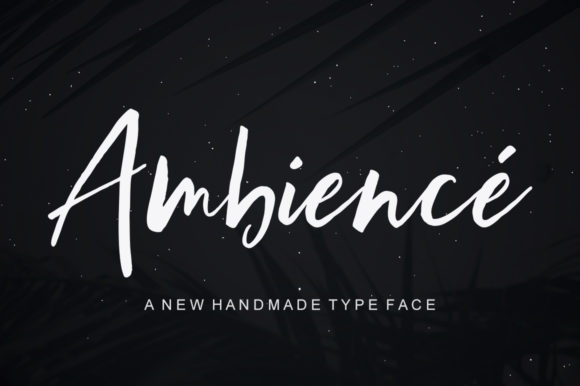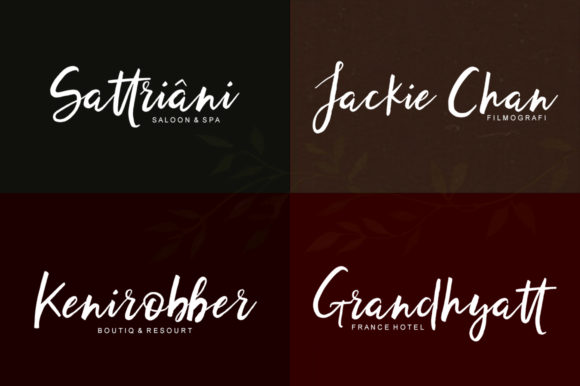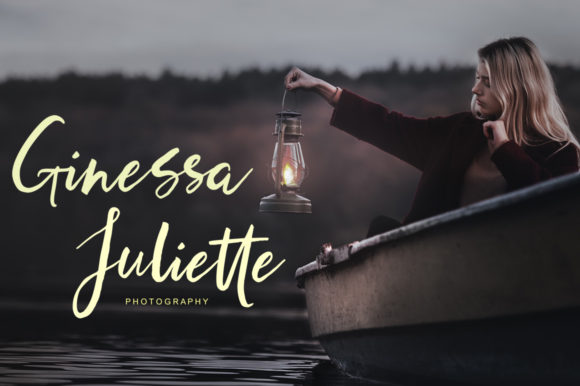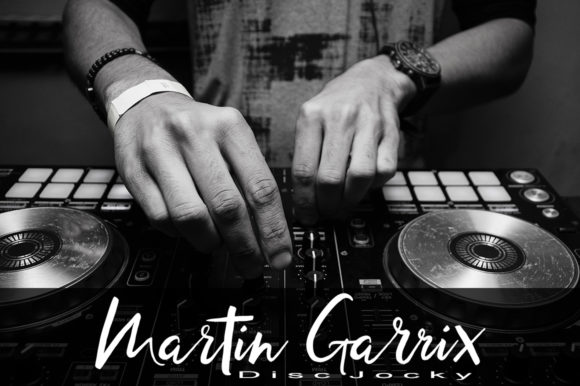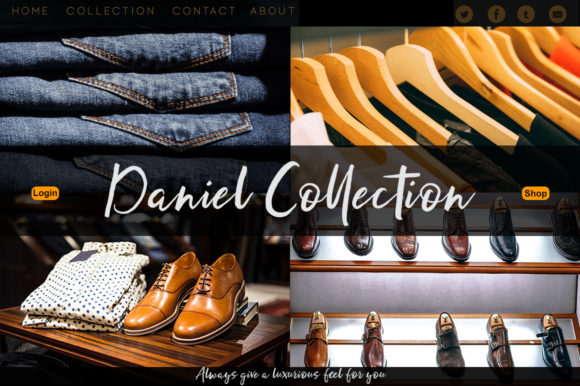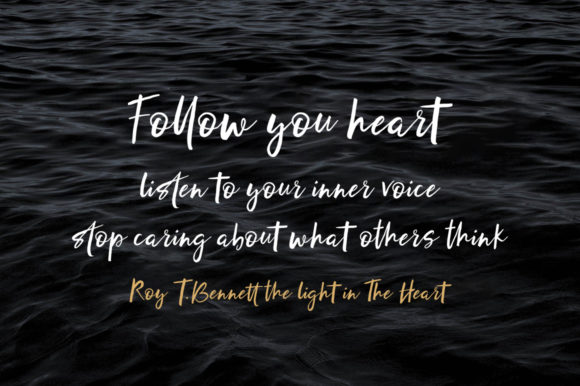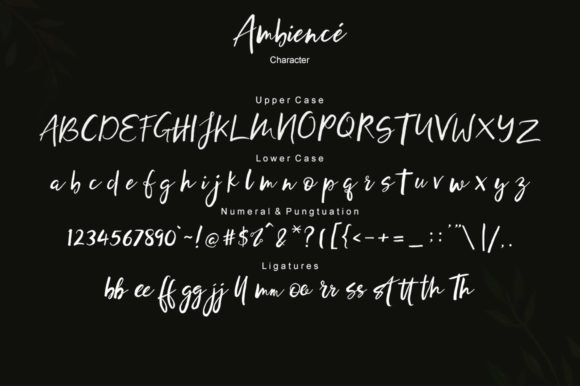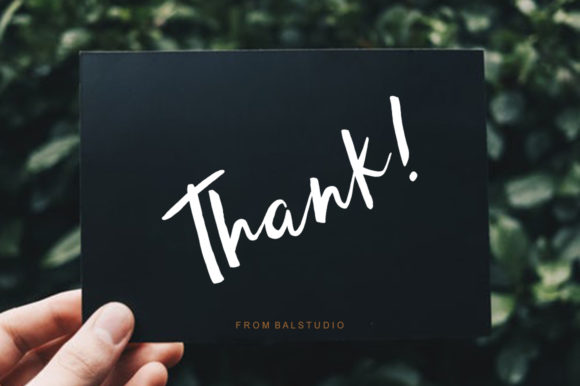
Ambience Font
About Ambience Font
Ambience is a stunning script featuring smooth curves and dramatic lettering. Use it to add an authentic touch to any design idea!